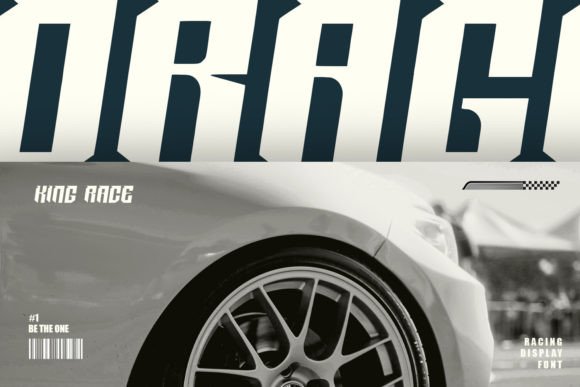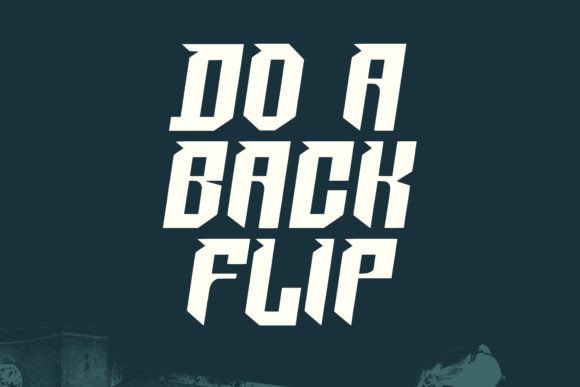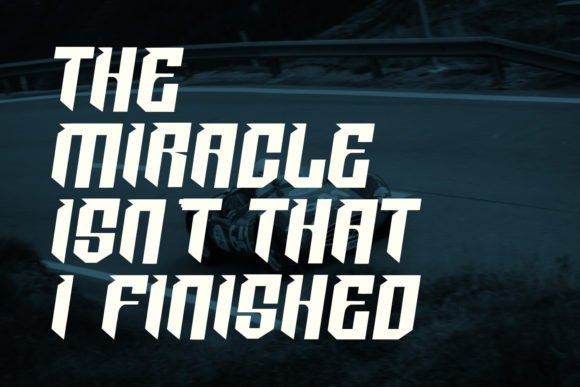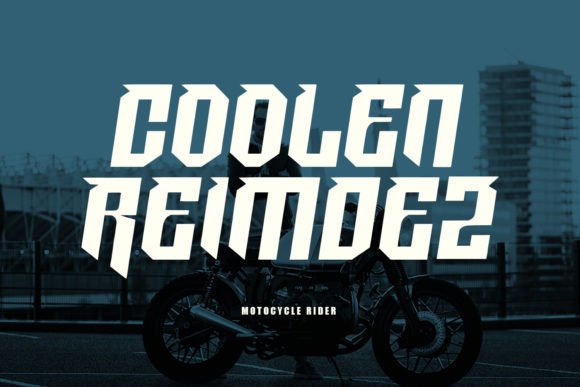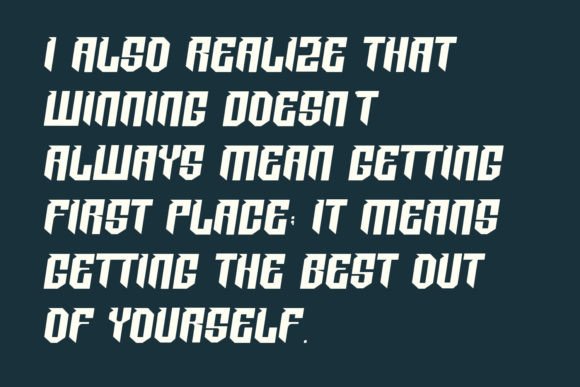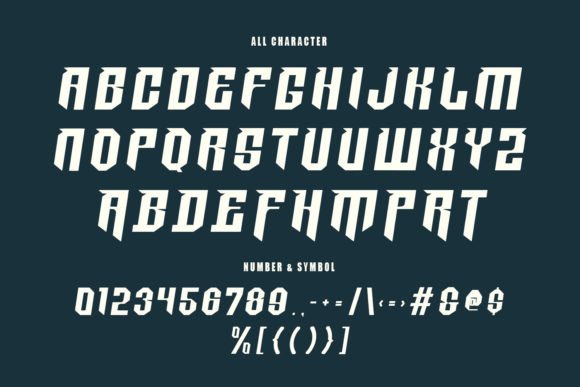
Introduction to More Speed Font
More Speed is a racing display font that’s bold and fast-looking.
It has sharp edges and dynamic lines, making it perfect for anything that needs an energetic and speedy feel .
Key Features of More Speed Font
Why Choose More Speed Font?